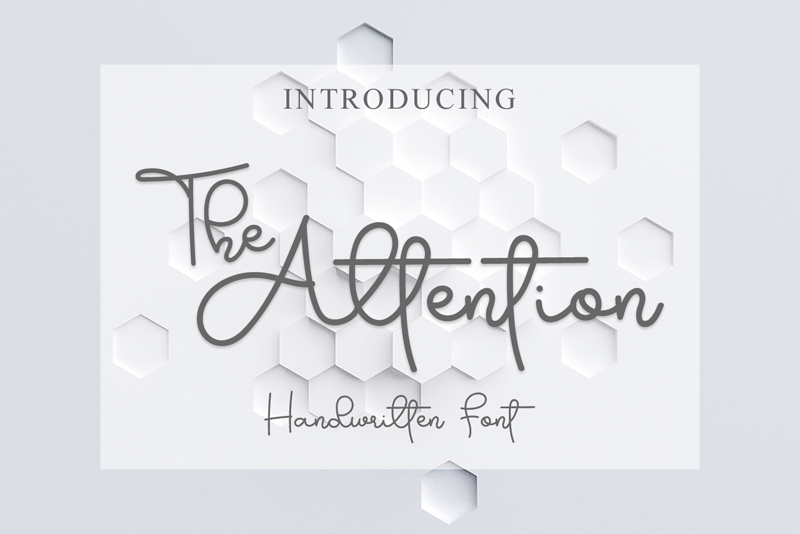
Preview and download The Attention Font. Created by Erik Luluk in Script Handwritten styles with Free for personal use license.
Font name: | The Attention |
The Attention is a lovely and delicate script font that exudes elegance and class. This font was particularly crafted for those who need a beautiful and refreshing look to their designs. Attention : The Attention handwriting Font is prohibited to use this font for commercial purposes or for profit without the permission of the author/admin, without being known to use this font without permission, will be subject to sanctions 5x the specified price. This font is used only for demos (Demo license) If you want to use this font for commercial use please contact email: erikluluk0@gmail.com or click the link below: https://www.creativefabrica.com/product/the-attention-2/ref/745146/ If you want to see more other fonts, please click:https://www.creativefabrica.com/designer/erik-studio/ref/745146/ Any donations are very appreciated. Paypal account for donation: https://paypal.me/eriksupriyant thanks. |